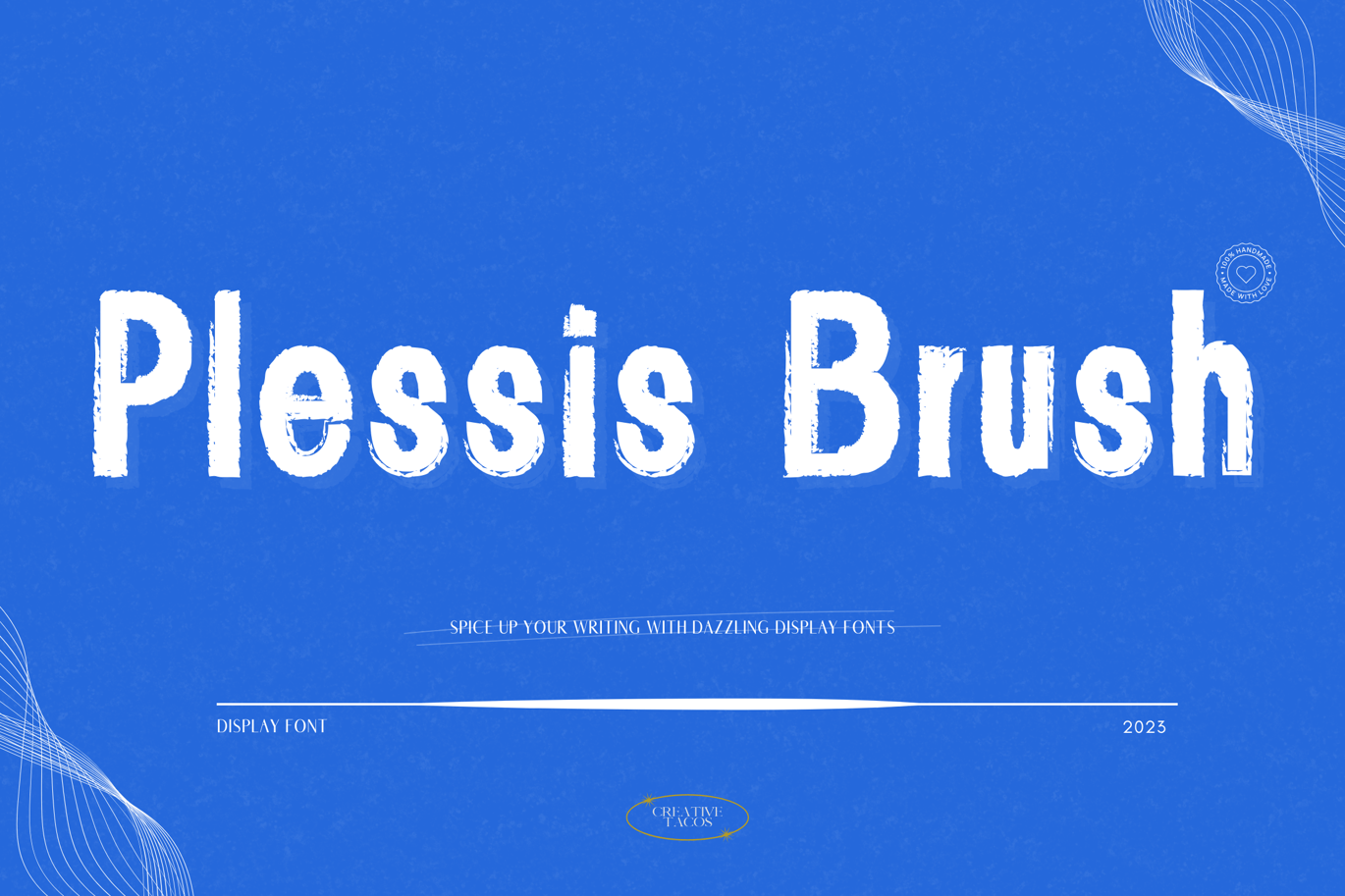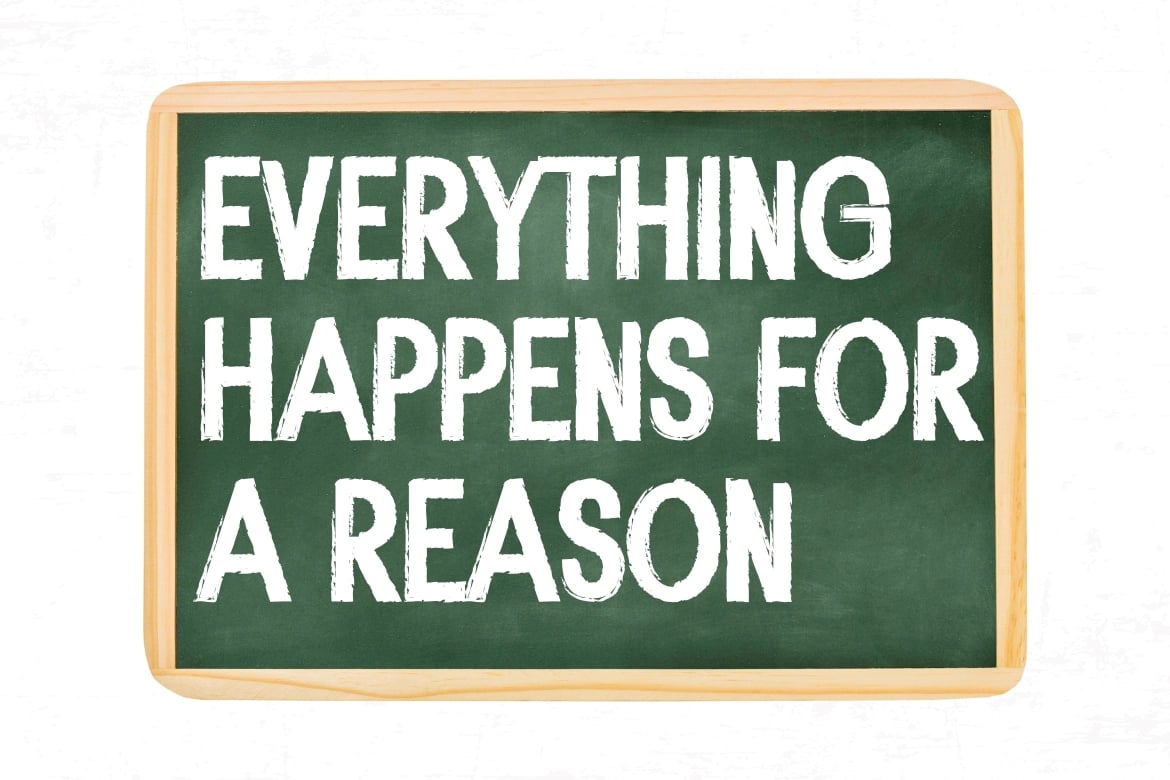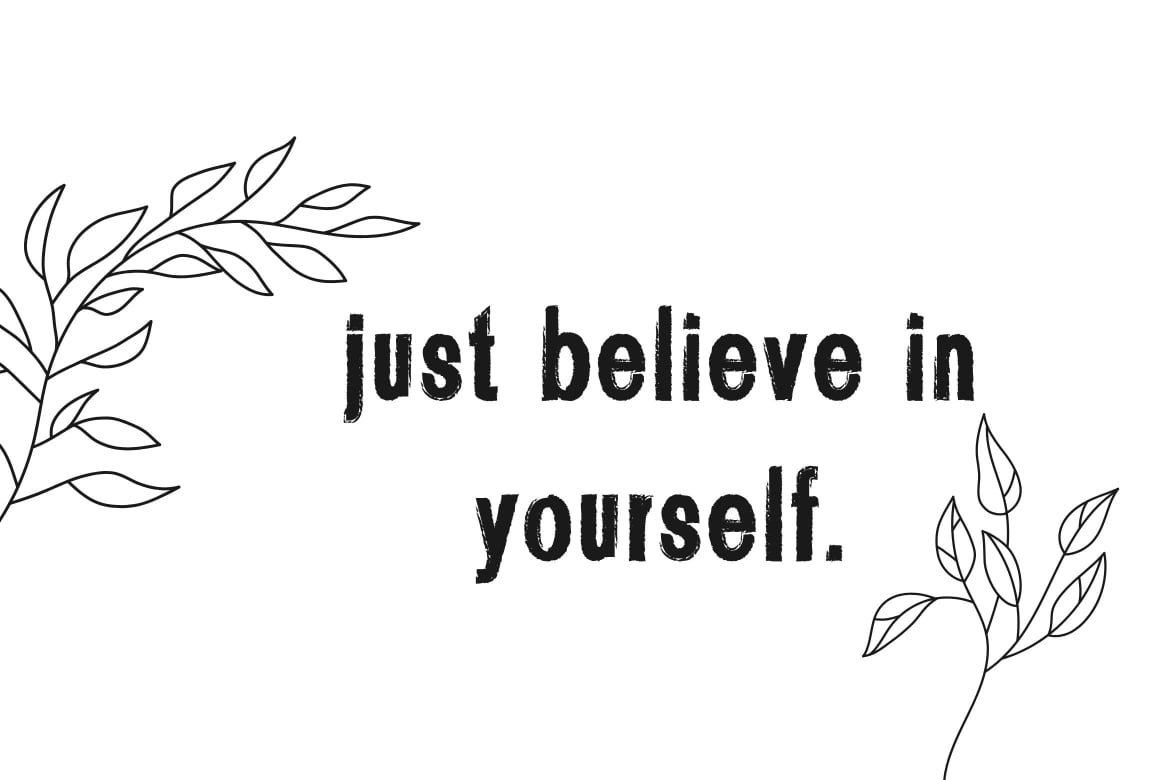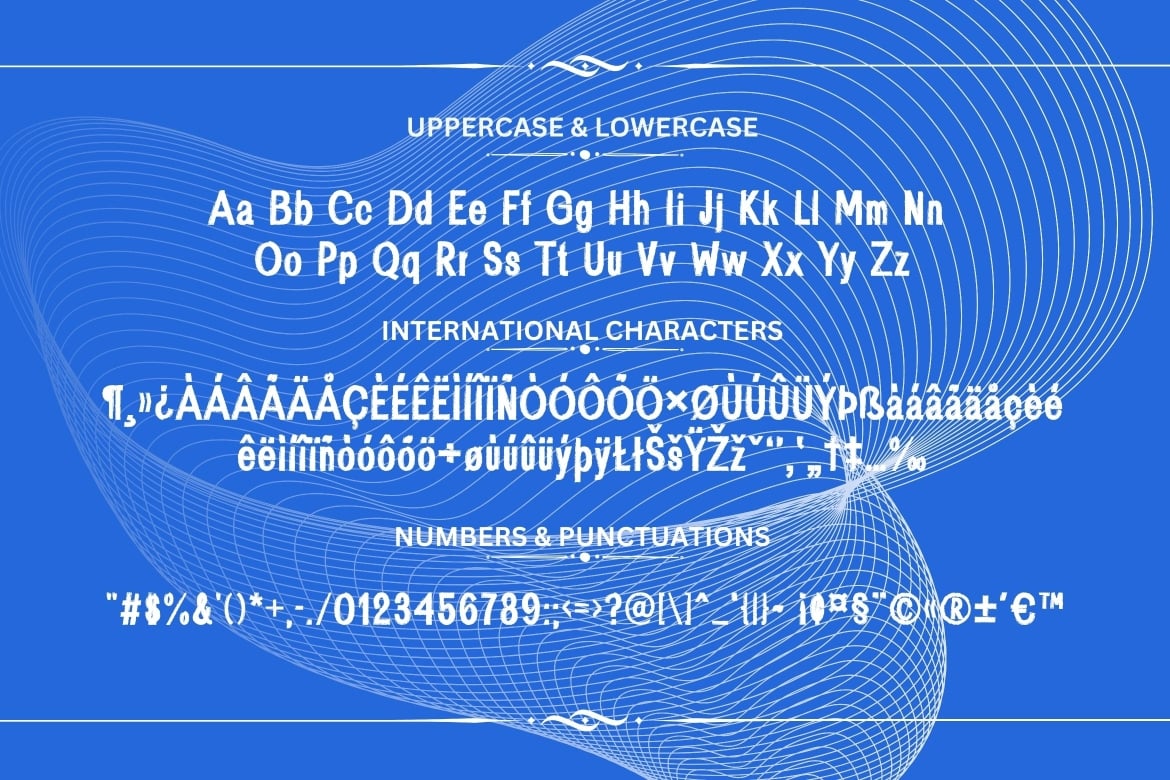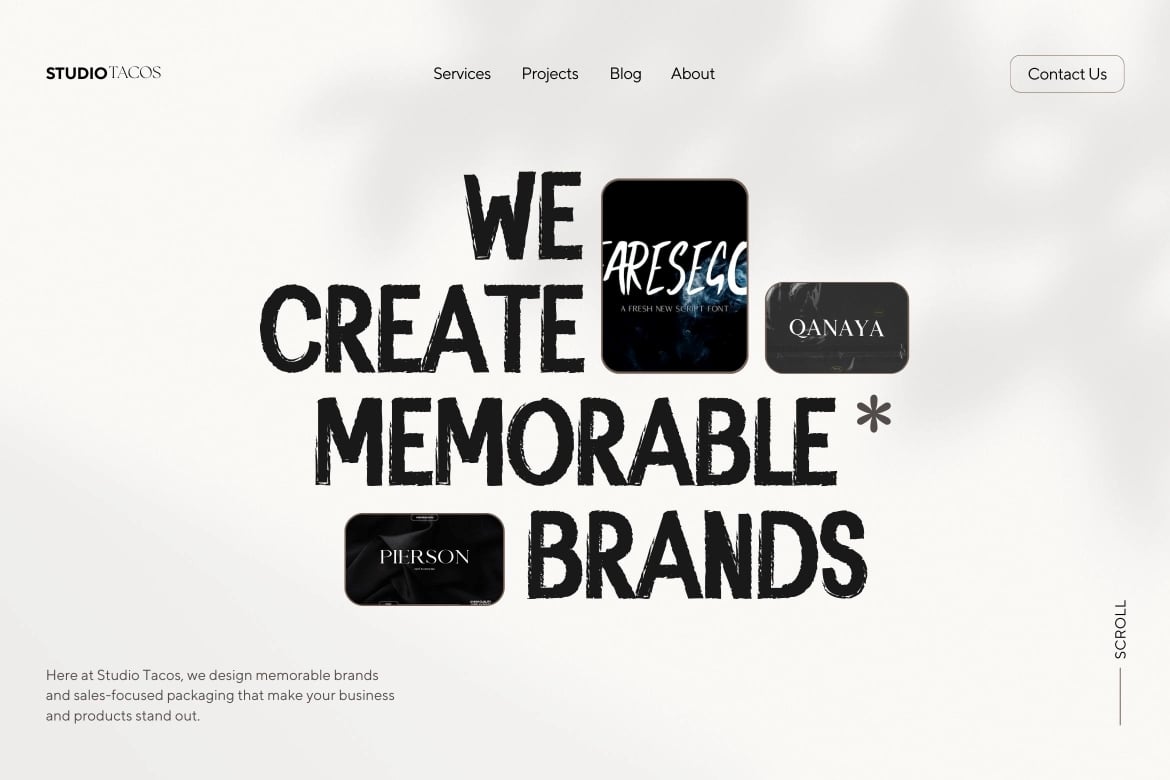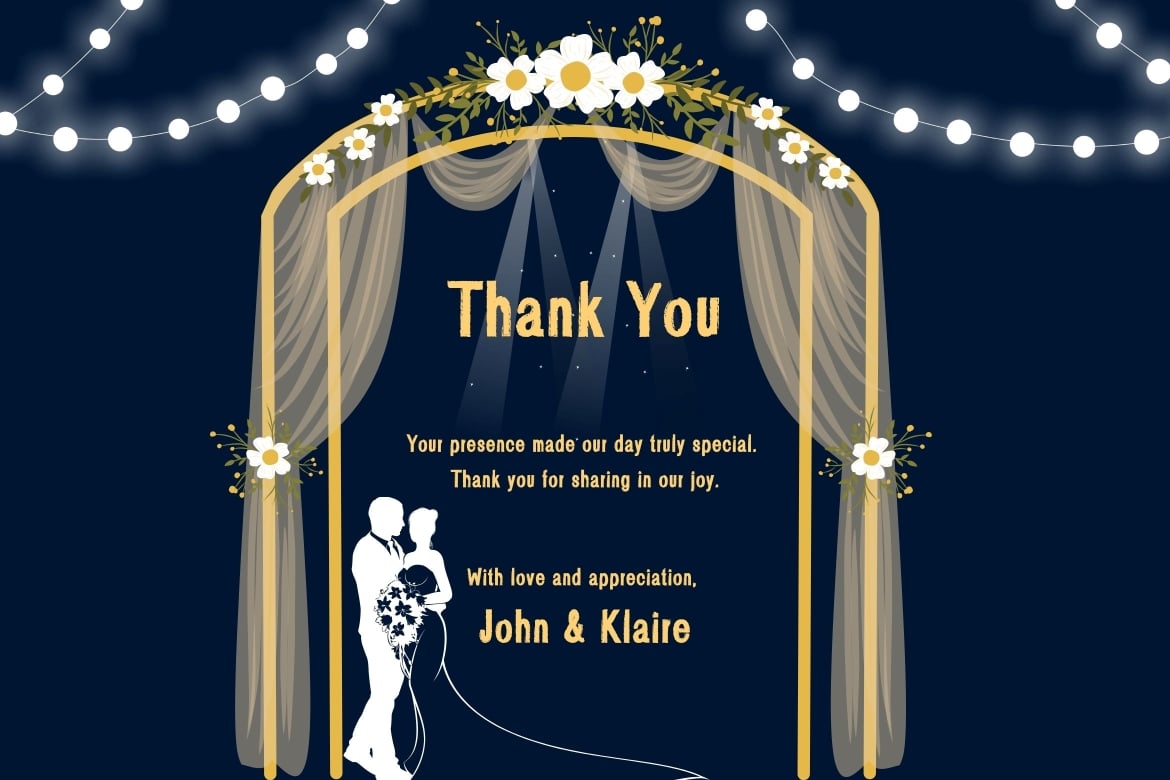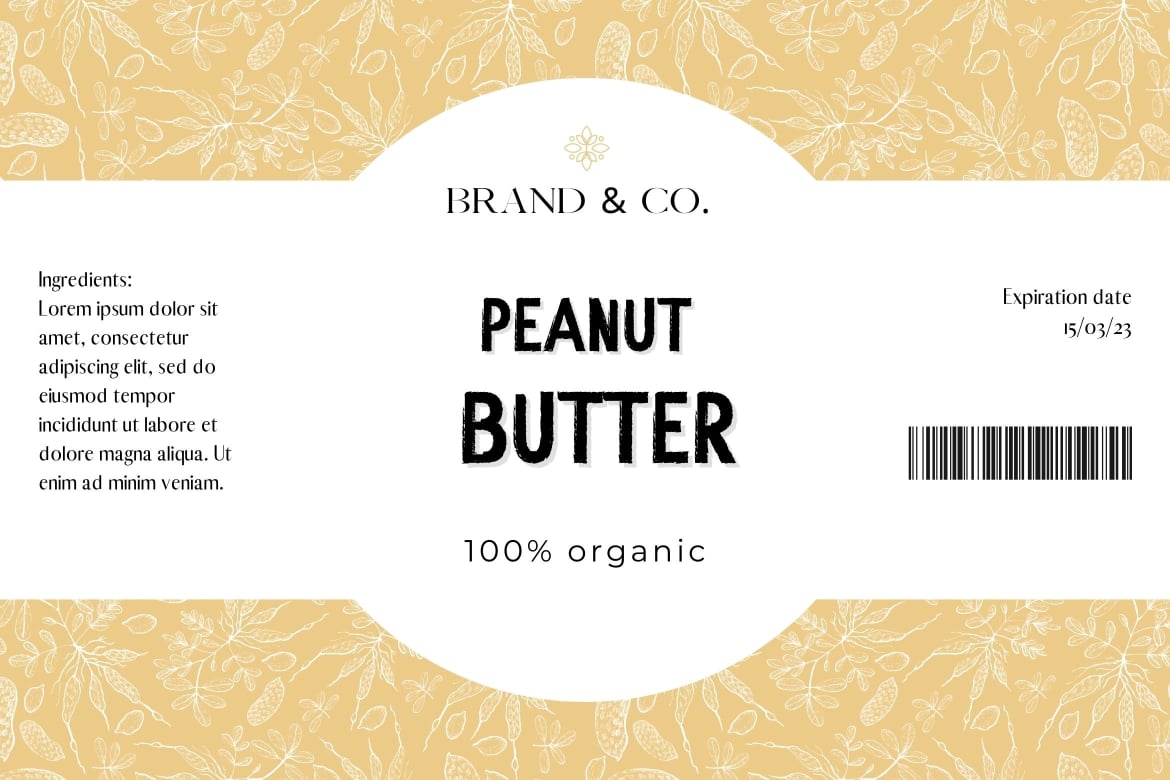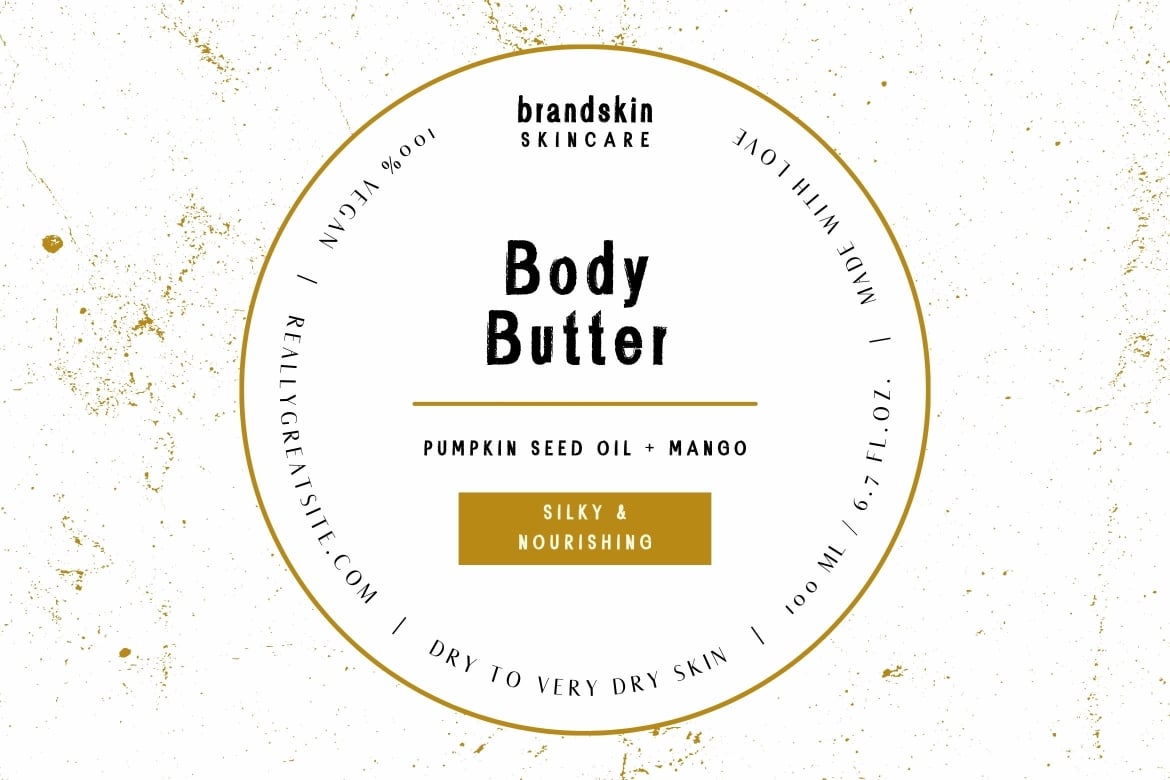
Plessis Brush Display Font
Welcome to our Plessis Brush Display Font! It’s a lively, unique handwritten typeface that injects a contemporary and enjoyable twist to your forthcoming assignments. It equips you with everything you require – uppercase, lowercase, numbers, punctuation, and symbols- and even supports multiple languages.
Plessis is the typeface for every occasion! Utilize it for presentations, logos, headlines, handwritten styles, posters, branding, uplifting quotes, titles, layout of magazines, web design, adverts, invites, cover artwork, and any other inventive project on your list.
The Plessis Typeface is filled with:
- Capital Alphabets (Uppercase)
- Small Alphabets (Lowercase)
- Numerals & Symbols
- Multi-language Support
Let’s take a quick look at the supported characters:
- All the alphabets from A-Z (uppercase and lowercase)
- All the numerals from 0-9
- All these special characters – !”#$%&'()*+,-./:;<=>?@[]^_`{|}~¥
- And a selection of global characters like ¡¢¤§¨©«®±´¶¸»¿ÀÁÂÃÄÅÇÈÉÊËÌÍÎÏÑÒÓÔÕÖרÙÚÛÜÝÞßàáâãäåçèéêëìíîïñòóôõö÷øùúûüýþÿŁłŠšŸŽžˇ‘’‚‛„†‡…‰€™